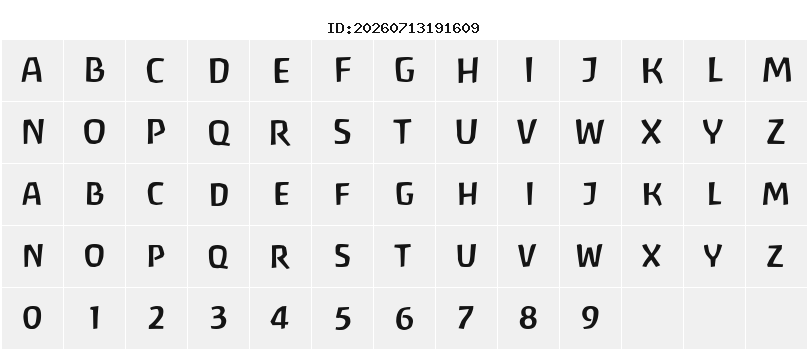
Baar Antropos Caps Preview
• Font Name: Baar Antropos Caps
• Full Font Name: Baar Antropos Caps
About Baar Antropos Caps.ttf
Baar Antropos Caps.ttf is a modern, elegant sans-serif font designed for ultimate readability and visual harmony. Perfect for branding, headlines, web design, and print materials.